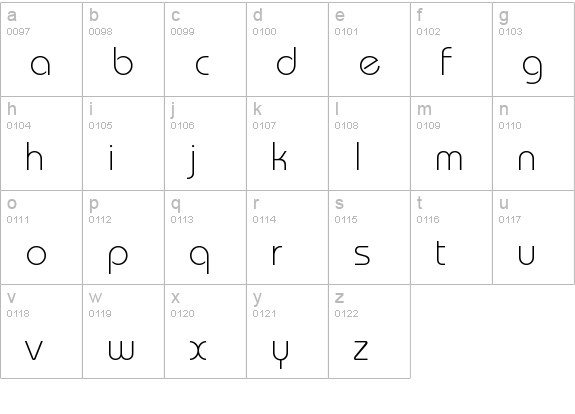
Bordeaux Light is a refined, elegant variant in the Bordeaux typeface family \xE2\x80\x94 well suited to elegant body text, refined sub-headings, and luxury branding.
Bordeaux Light font is a sophisticated and elegant typeface that exudes a sense of timeless beauty and refinement. With its delicate strokes and graceful curves, this font is perfect for adding a touch of sophistication to any design project. Whether you are creating wedding invitations, branding materials, or editorial layouts, Bordeaux Light font will elevate your work with its effortless charm. Best of all, Bordeaux Light font is available for free download at FontsMarket.com. Now you can enjoy the beauty and versatility of this stunning font without any cost. Don't miss out on this opportunity to enhance your designs with the exquisite Bordeaux Light font. Download it today and let your creativity shine!